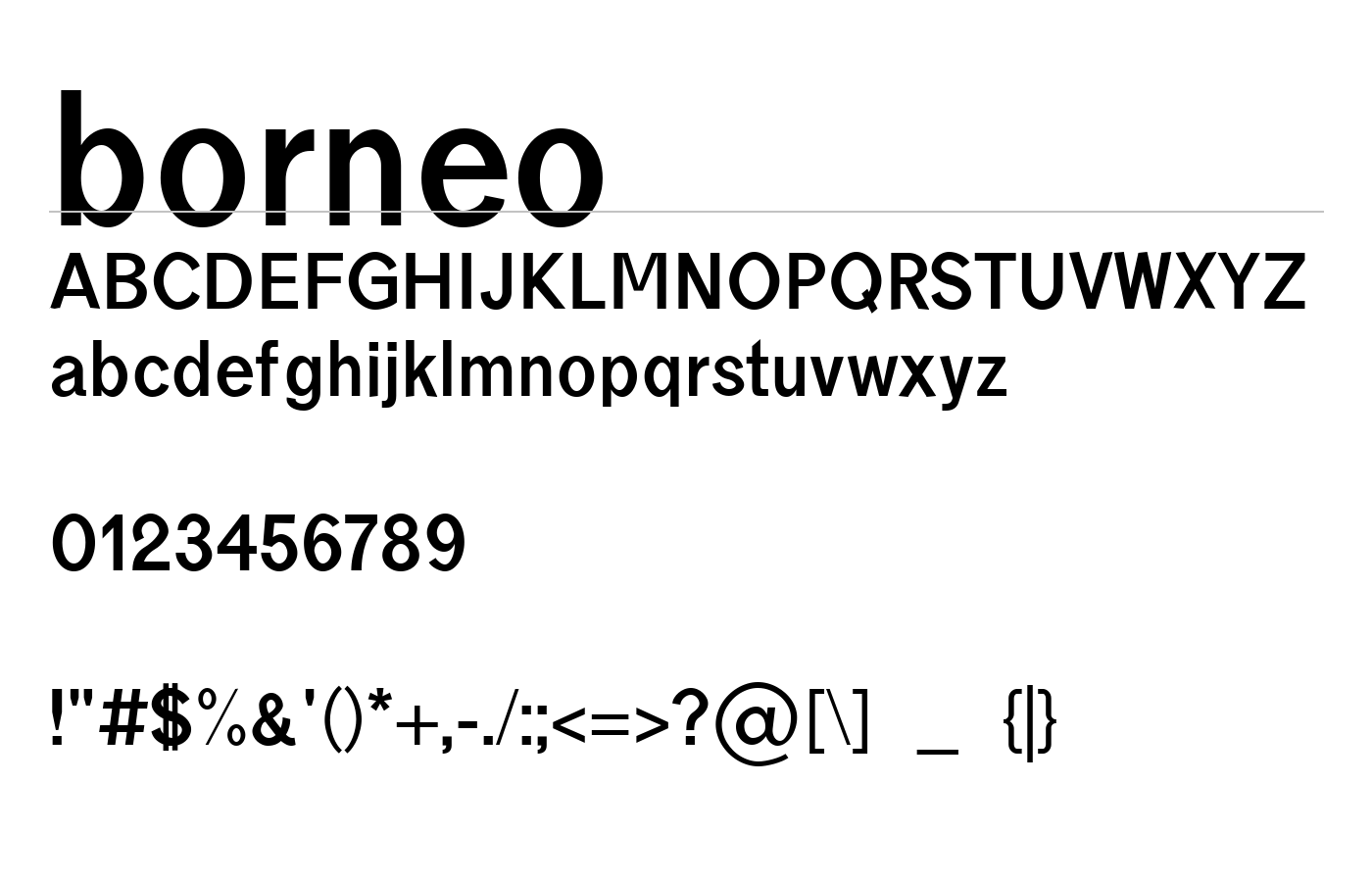
Borneo is a clean and modern sans serif font characterized by its regular weight, balanced proportions, and medium x-height that ensures clear readability. Its straightforward geometric letterforms with low stroke contrast give it a neutral and professional feel, making it ideal for versatile use in branding, editorial design, and digital interfaces. This font’s simplicity and clarity allow it to work well both in headlines and body text, providing an approachable yet polished appearance.
borneo Font